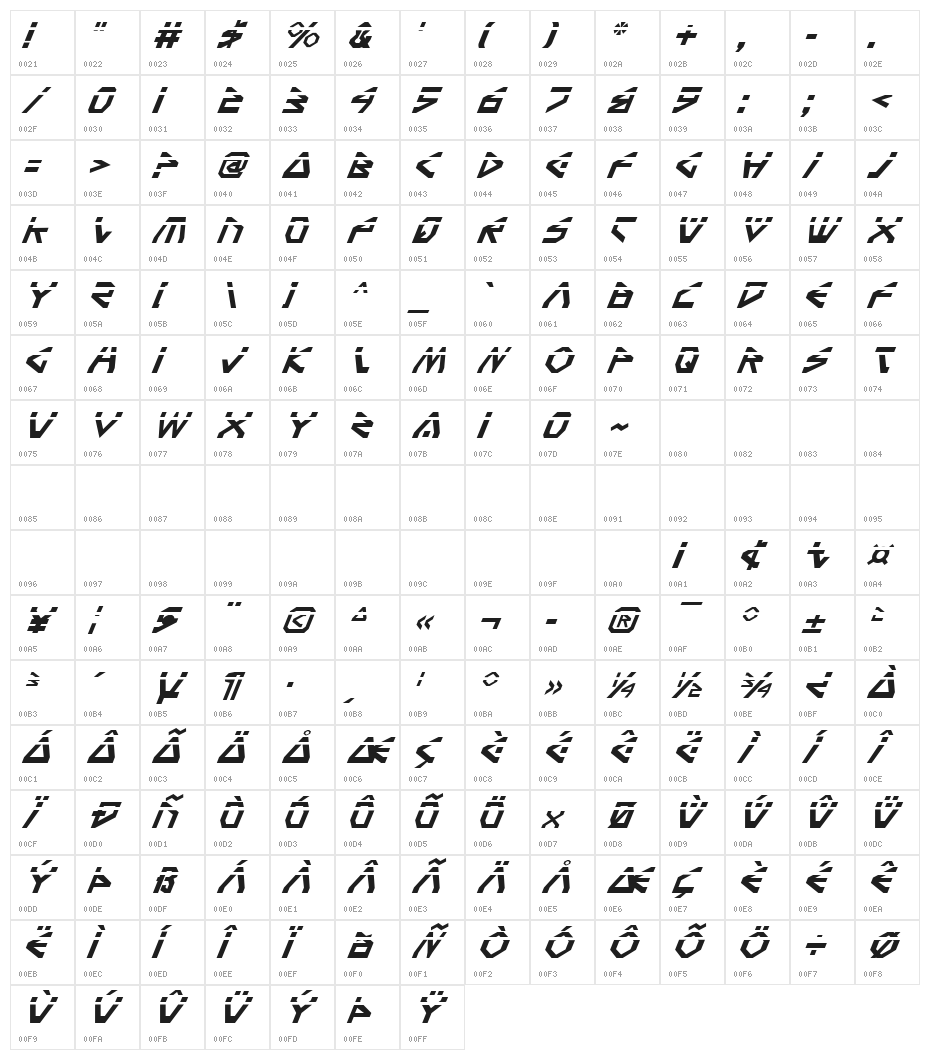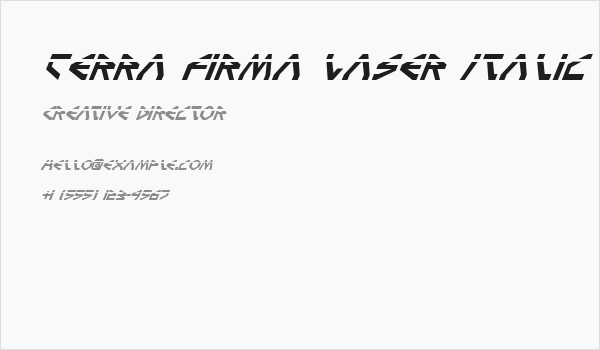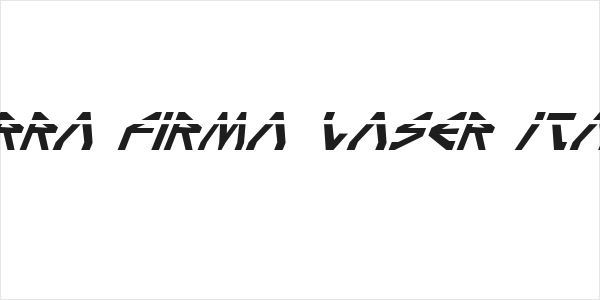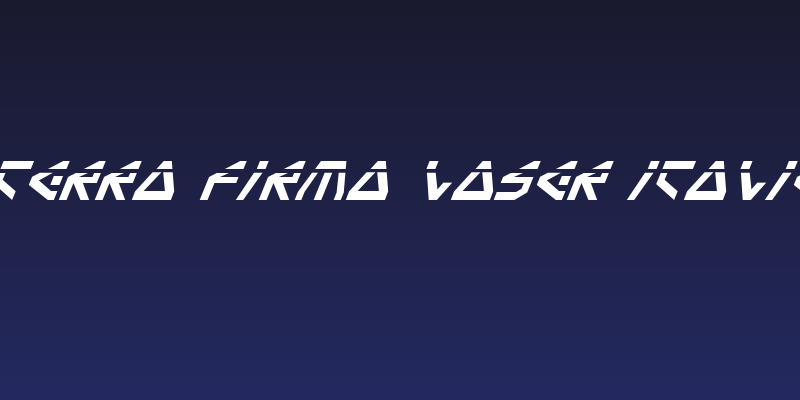
Terra Firma Laser Italic Font
Terra Firma Laser Italic Description
This font features a futuristic, angular design with sharp edges and a dynamic slant, giving it a sense of motion and energy. The characters are bold and geometric, with a consistent italicized style that adds to its modern and cutting-edge appearance. The uppercase and lowercase letters maintain a uniform width, while the numbers and special characters follow the same angular theme, ensuring a cohesive look across all elements. The font's unique style makes it ideal for projects that require a bold, standout typeface with a technological or sci-fi aesthetic.
Overall StyleFuturistic
Proposed ProjectsIdeal for sci-fi movie posters, video game titles, tech branding, and futuristic-themed designs.